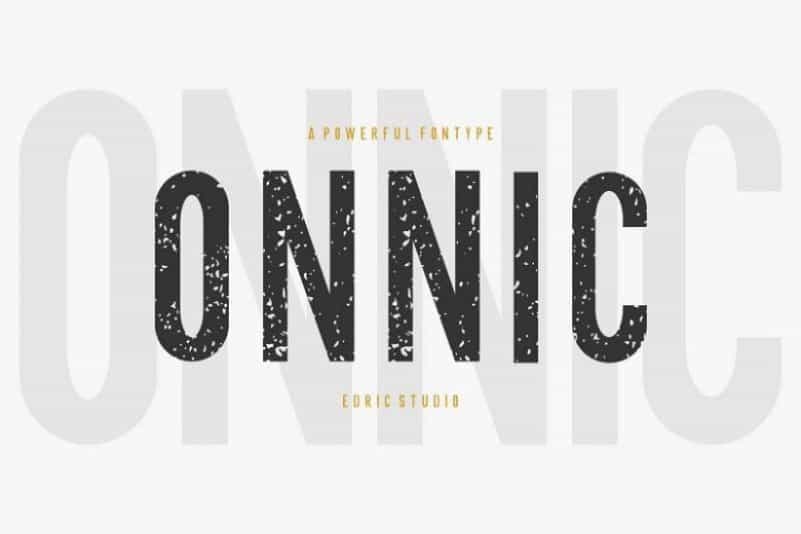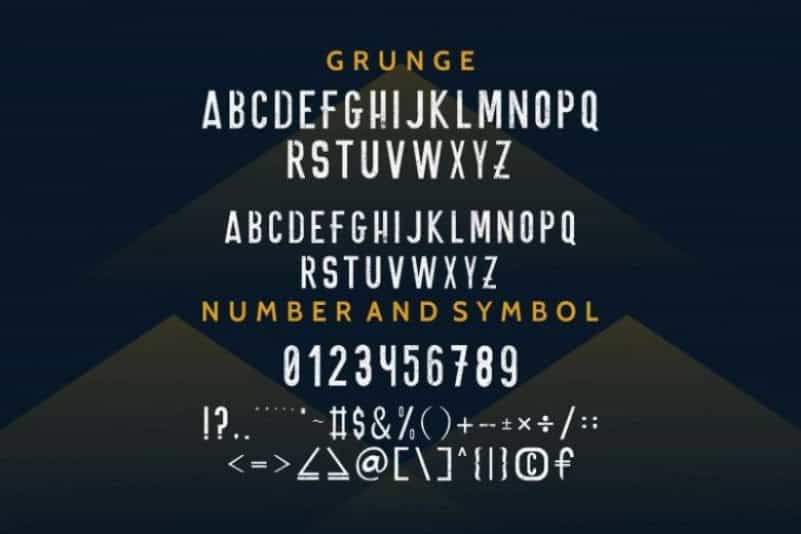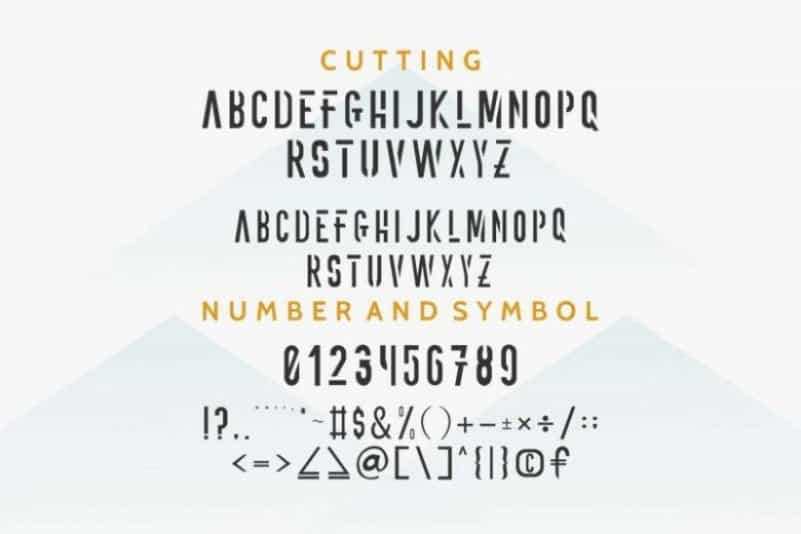
Discover ONNIC Display Font, part of the Sans Serif Display collection—a versatile and unique font perfect for adding a personal touch to your projects. Download it for free and enjoy crafting designs with style, from invitations to social media posts. This font is available exclusively for personal use, giving you the freedom to create without limits. Unlock your creativity with ONNIC Display Font today!
Introducing our newest font : ONNIC Display Font! This package consist of 4 Styles font : Standar, Cutting (monospaced), grunge and outlineThis is a modern display font. It is a clean, chic, exclusive, and fashionable glyph. Ideal for branding, logo type, stationery, business card, signage, flyer, brochure etc.